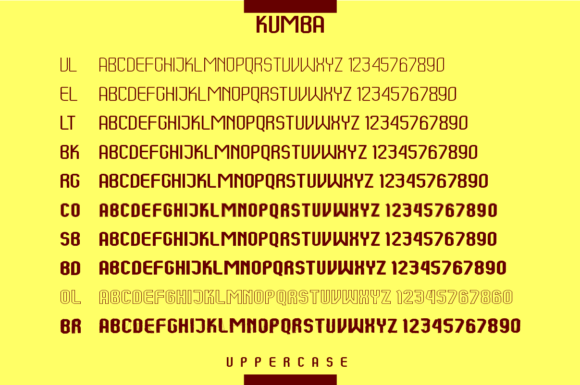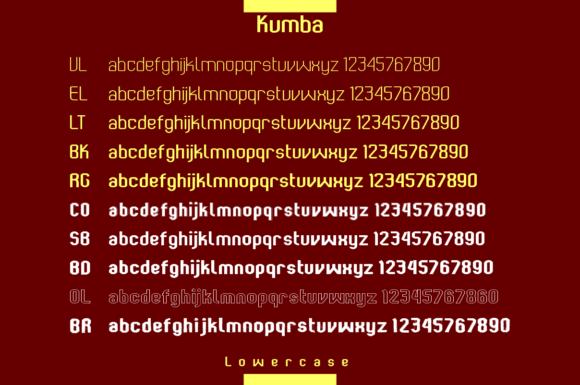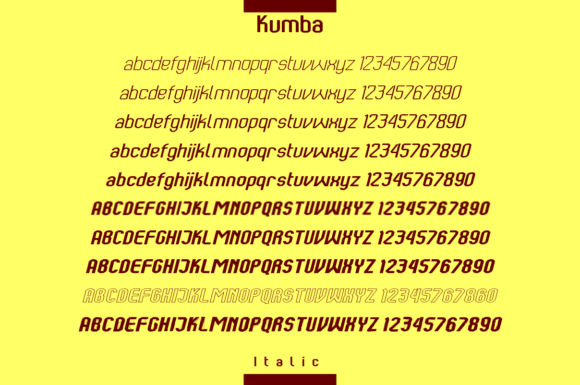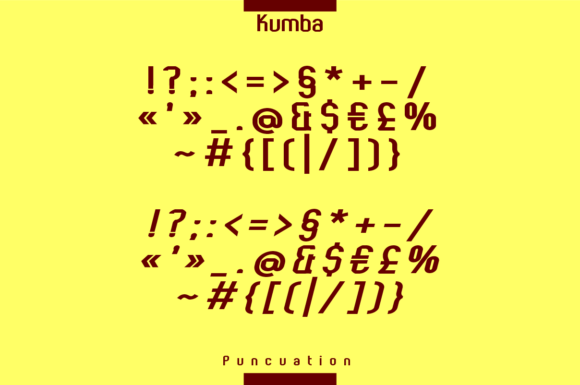
Introduction to Kumba Expanded Font
Kumba Expanded is a great sans serif font.
Whether youโre looking for fonts for Instagram or calligraphy scripts for DIY projects, Kumba Expanded will turn any creative idea into a true piece of art .
Key Features of Kumba Expanded Font